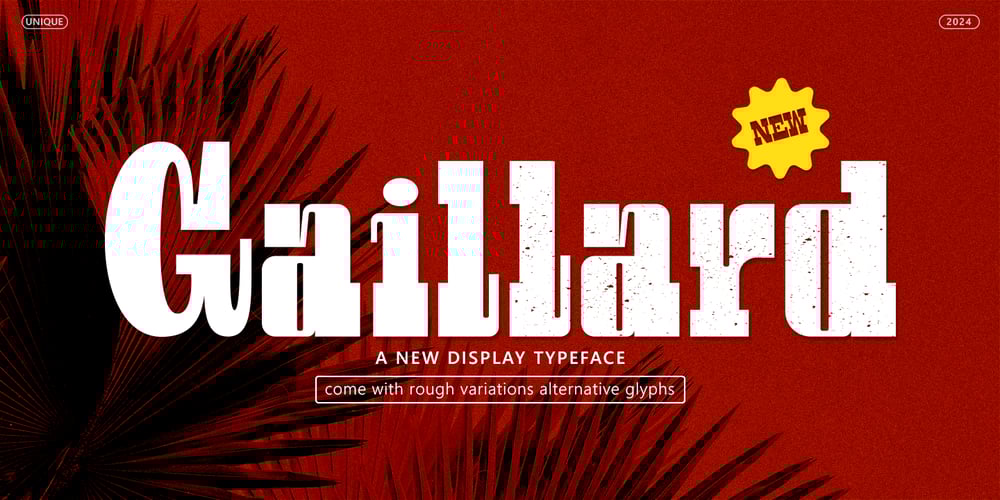
Gaillard
Gaillard font
Gaillard Font Family was designed by Jamaluddin and published by Jamalodin. Gaillard contains 1 styles and family package options. Gaillard is a beautiful display font that is suitable for branding, wedding invitations, greeting cards, posters, name card, quotes, blog header, logo, fashion, apparel, letter, stationery and other projects.Gaillard come with alternative Rough Variations. Uppercase & Lowercase International Language & Symbols Support Punctuation & Number PUA Unicode Range Standard Stylistic Alternates Stylistic Set Character Variant Contextual.